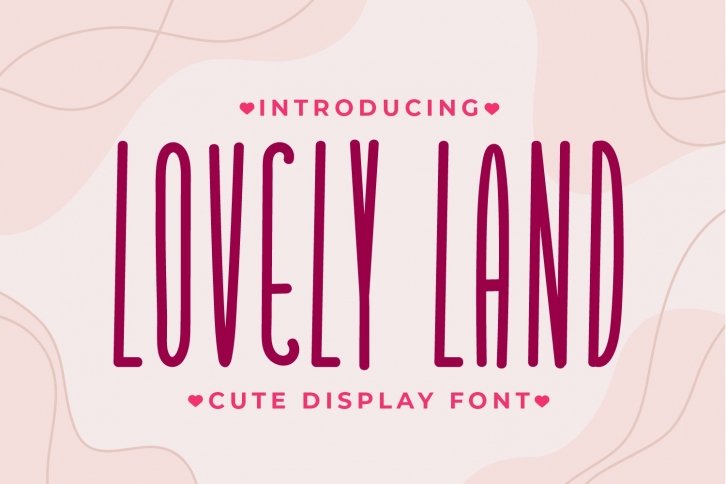
Lovely Land - Cute Display Font Download
Lovely Land is a great font that was designed by titik creative. Imagine the amount of combinations you can create using this font! The archive is 10.25 MB and it was released on January 11, 2021. Lovely Land looks beautiful on wedding invitations, greeting cards, logos, posters, labels, t-shirt designs, logos, business cards and is perfect for use in ink or watercolor works, fashion, magazines, packaging and food menus, children's books and more!